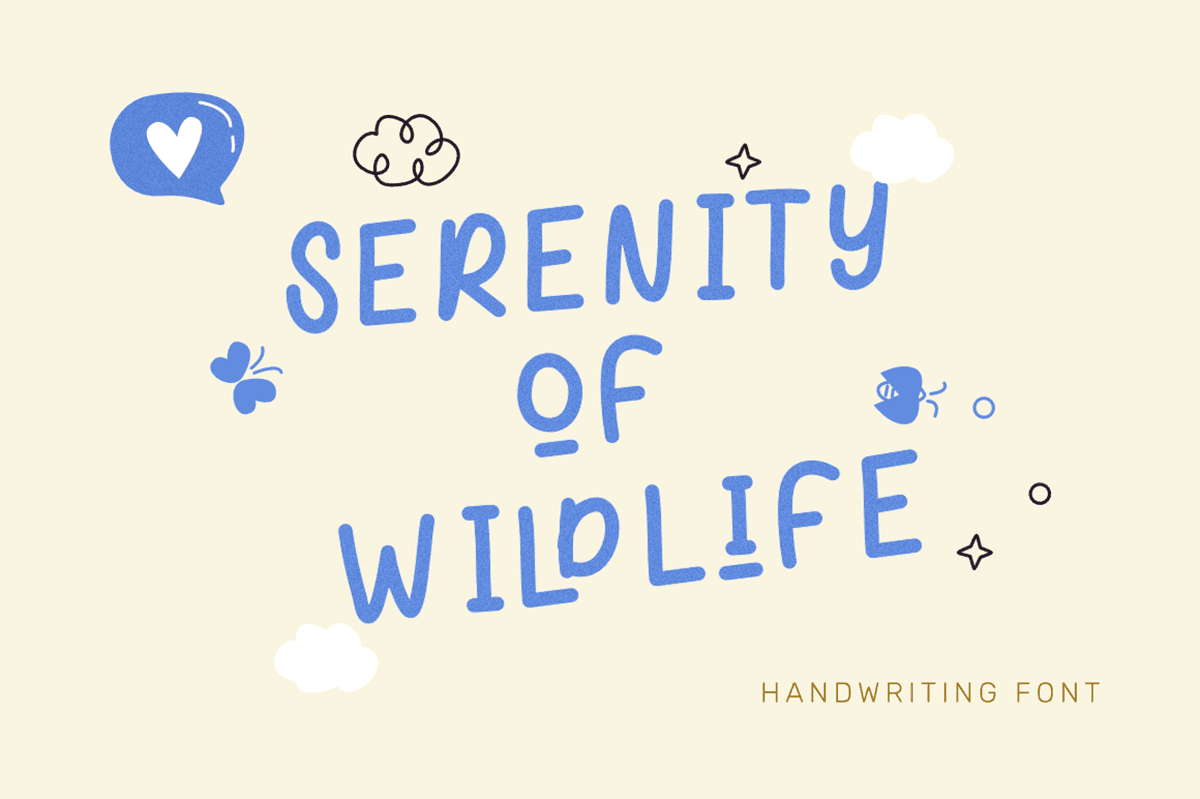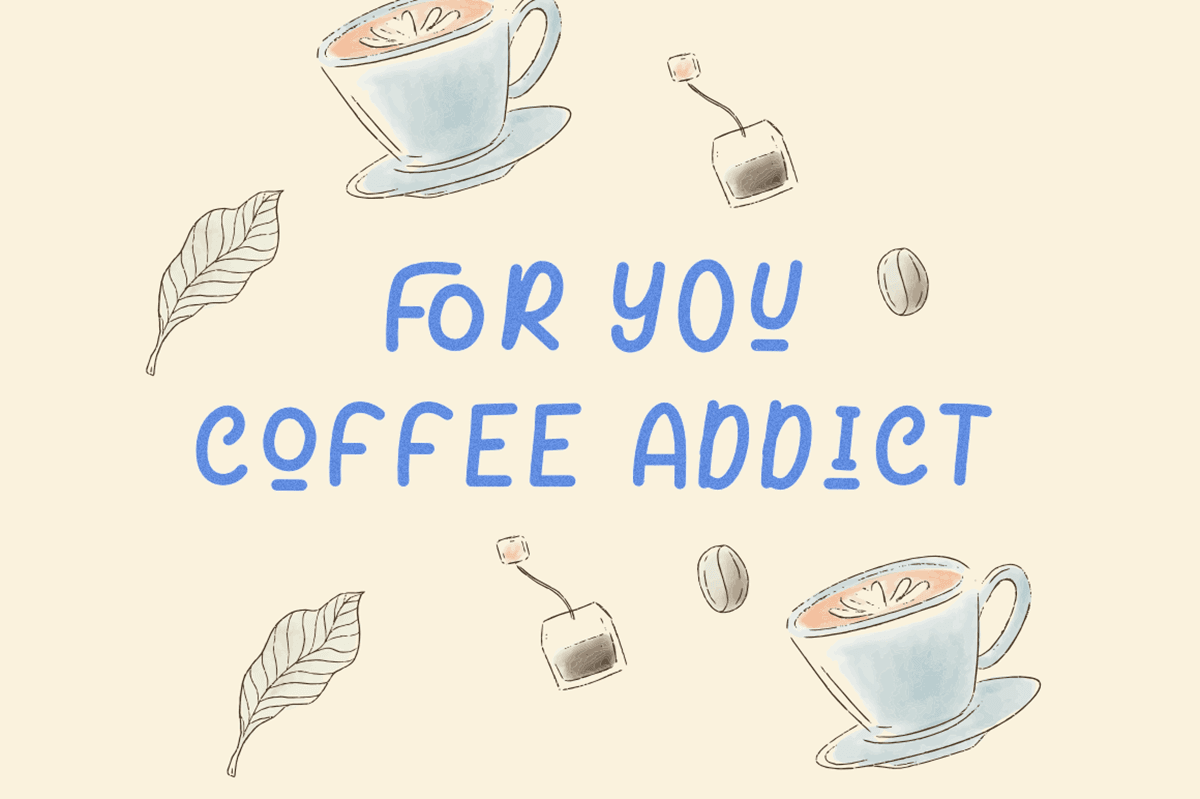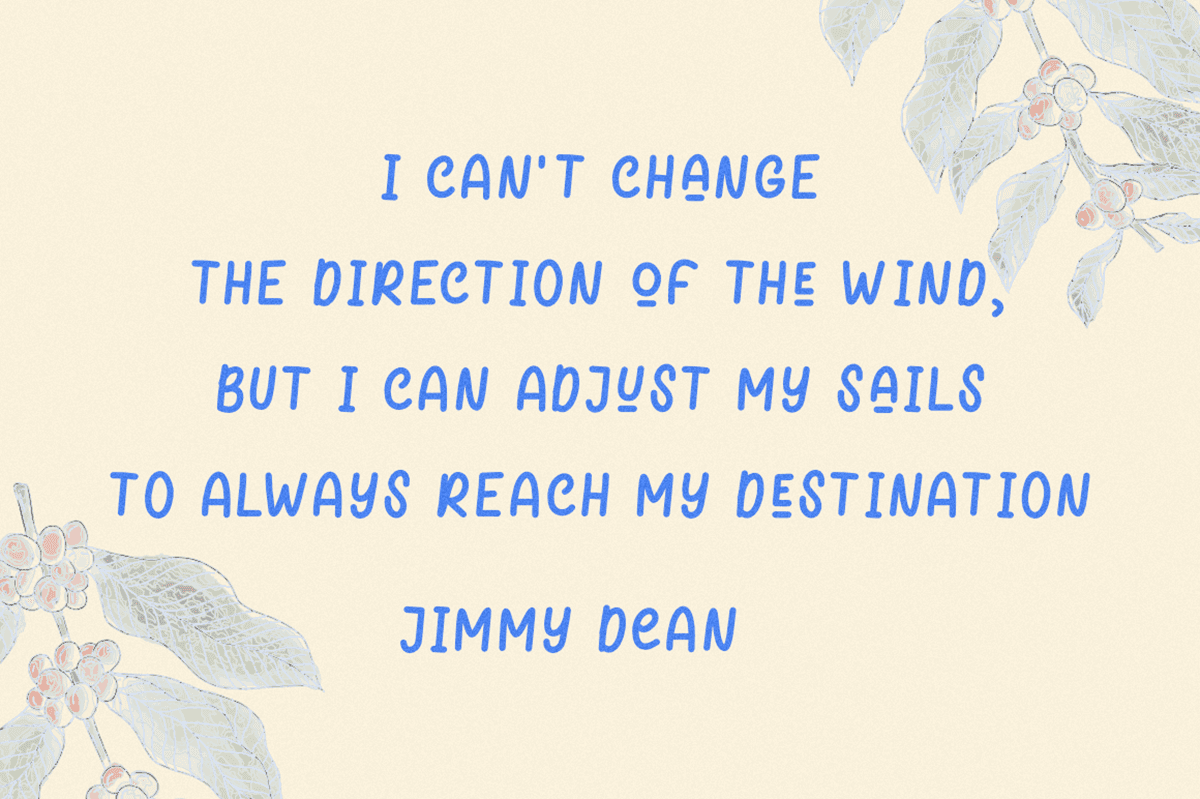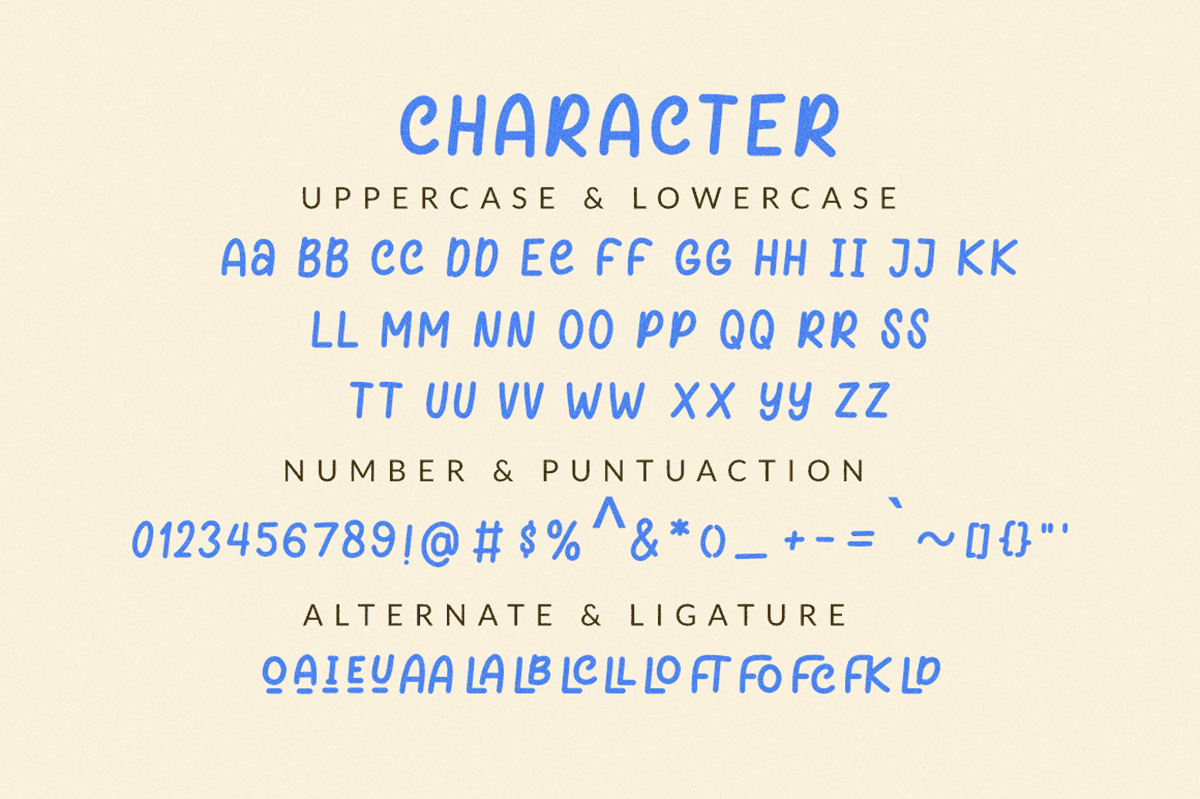
Blassome – Display Font is a playful and vibrant font designed to bring joy and creativity to your projects. Perfect for the funny, apparel, and kids markets, Blassome features bold and quirky letterforms that spark imagination and add a touch of whimsy. Whether you’re creating designs for children’s clothing, fun posters, or cheerful branding, this typeface captures attention and delivers a lighthearted charm. Its friendly curves and lively character make it an excellent choice for anyone looking to infuse their work with positivity and a sense of fun.